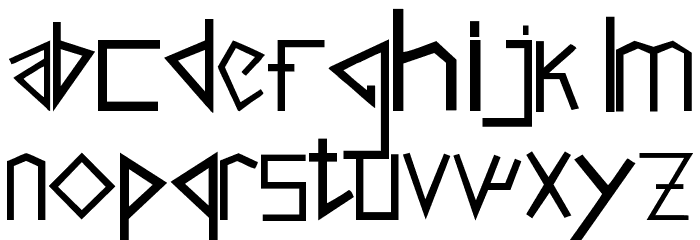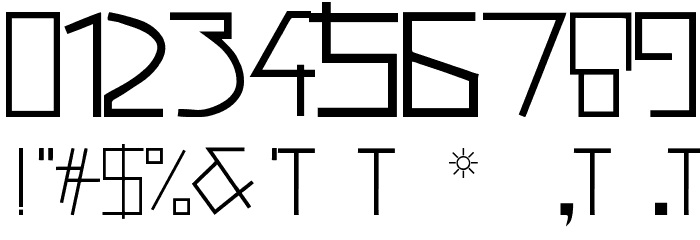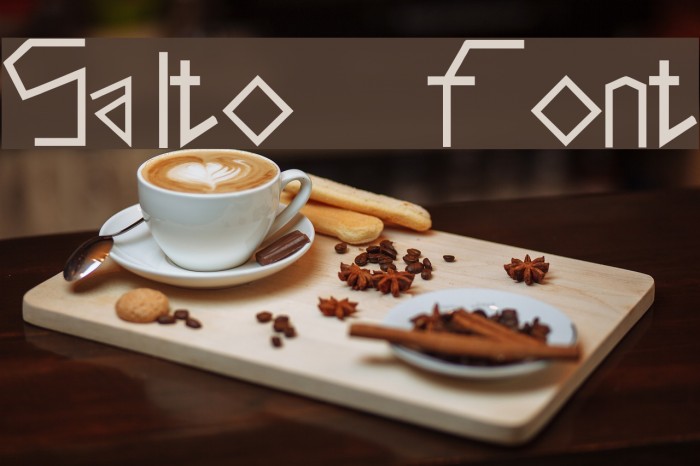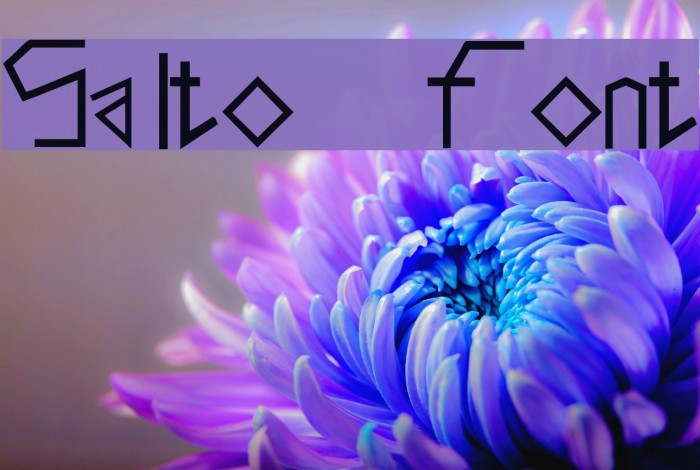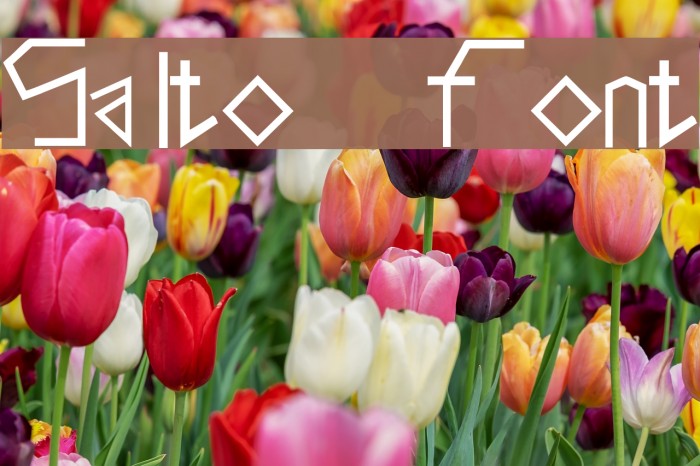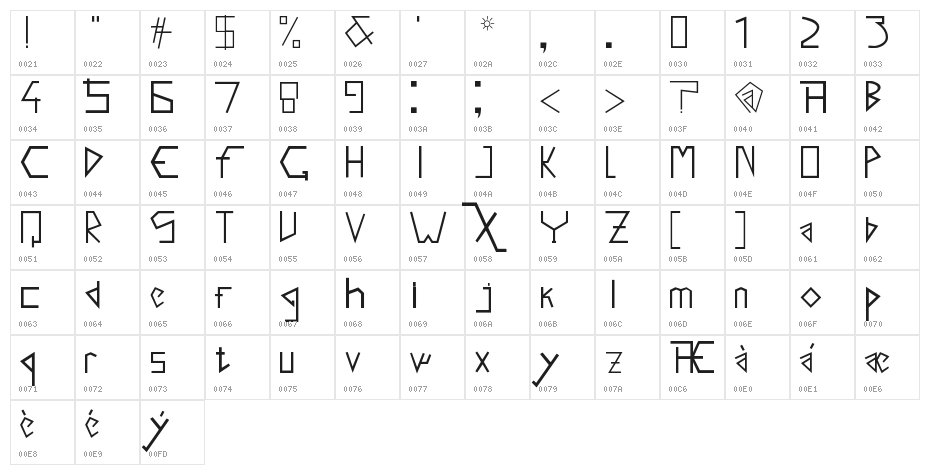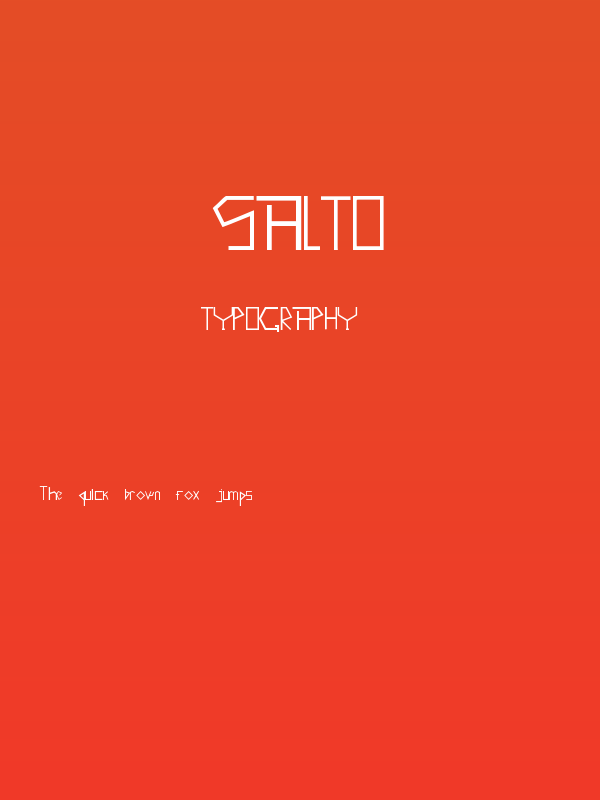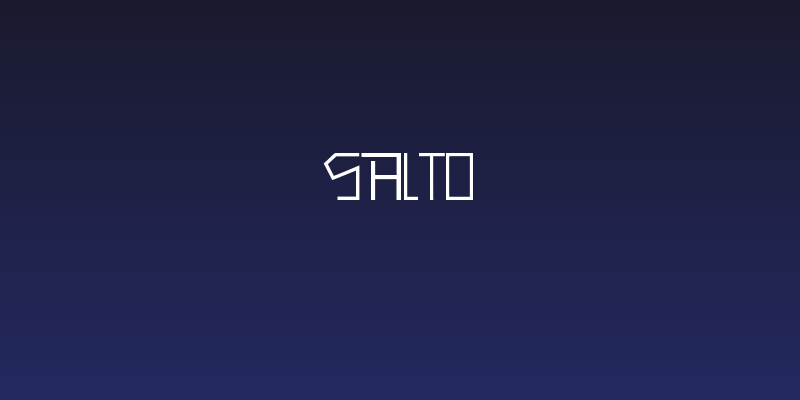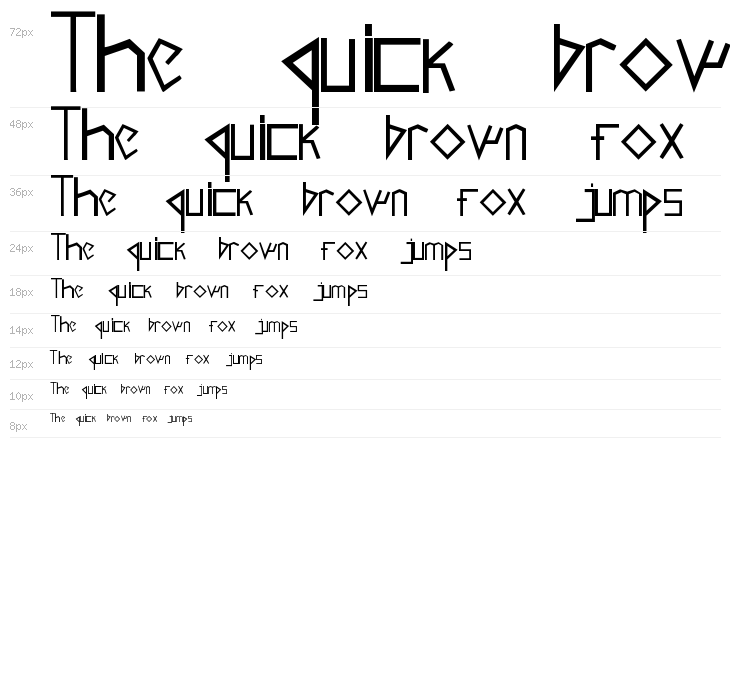
Salto Font
This font features a geometric and angular design, characterized by sharp edges and a modern aesthetic. The uppercase letters exhibit a unique blend of straight lines and acute angles, creating a futuristic look. Lowercase letters maintain this geometric style, with some characters like 'g' and 'y' having distinctive, unconventional forms. The numerals are bold and consistent with the angular theme, ensuring readability while maintaining the overall design. Special characters are crafted with the same attention to angular detail, making them cohesive with the rest of the font. This font is ideal for projects that require a modern, edgy appearance.
A geometric, angular font with a modern and edgy aesthetic.
- Proposed Projects: Ideal for technology branding, sci-fi posters, modern art projects, and innovative product packaging.